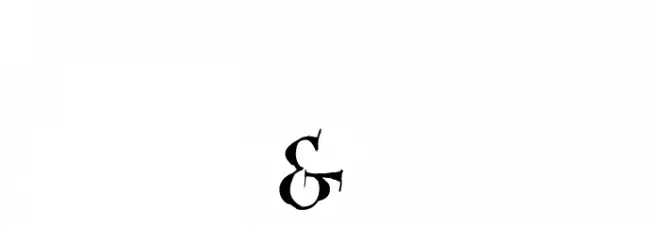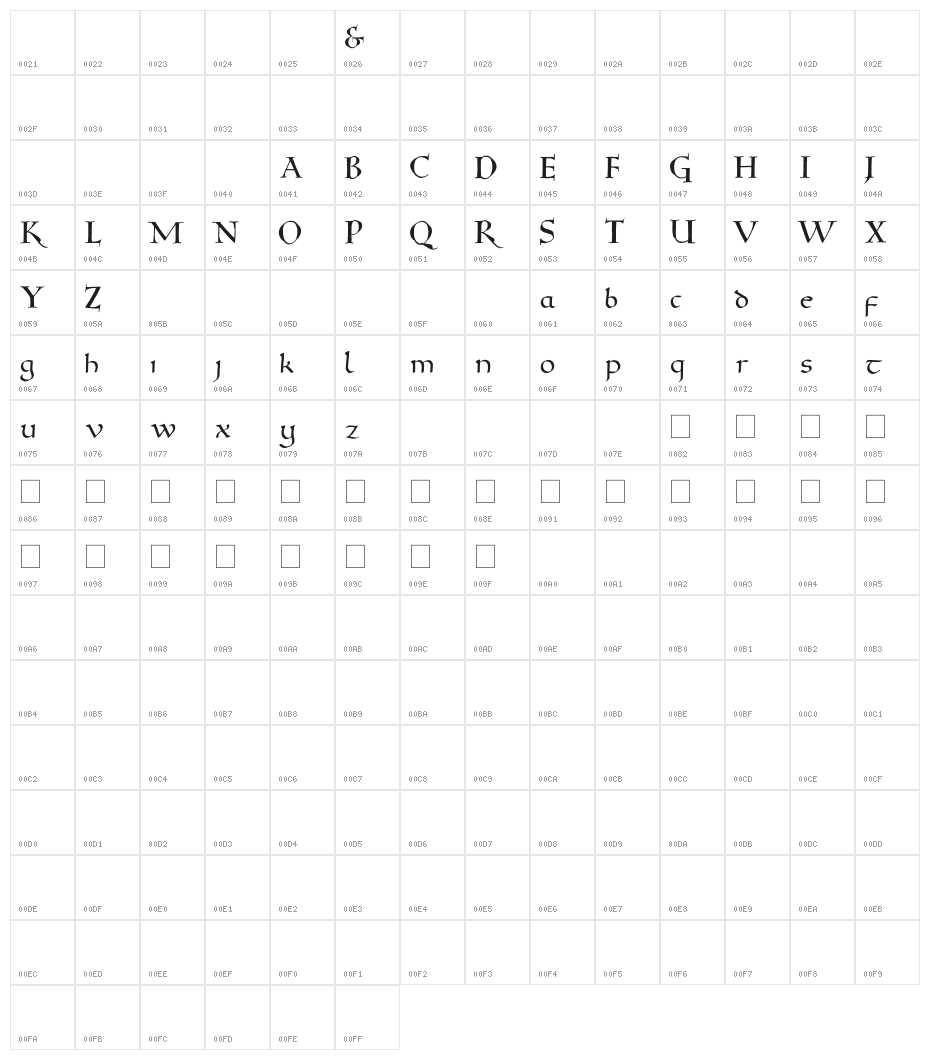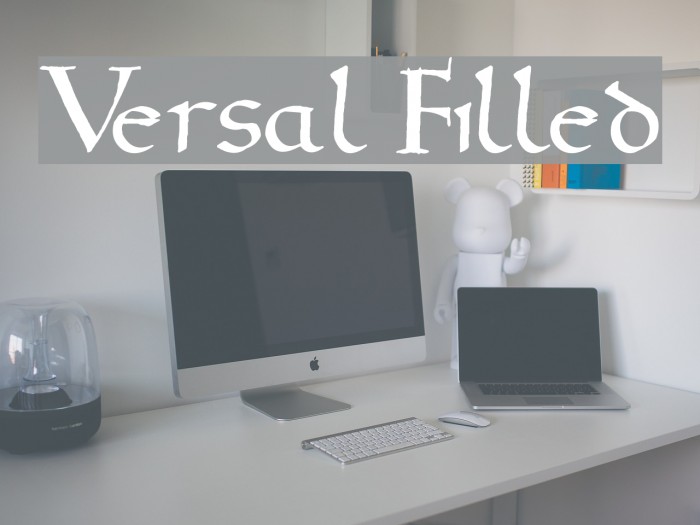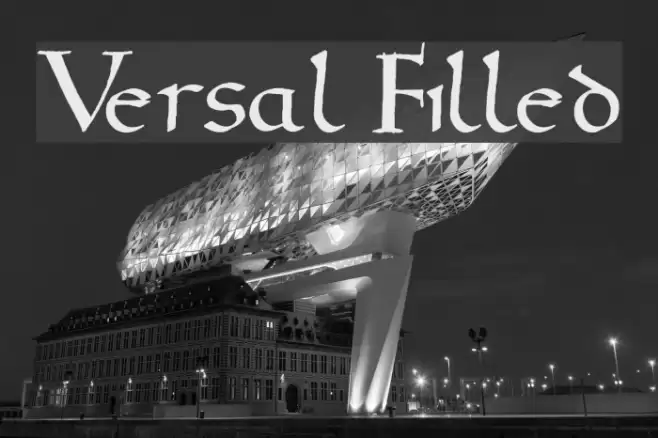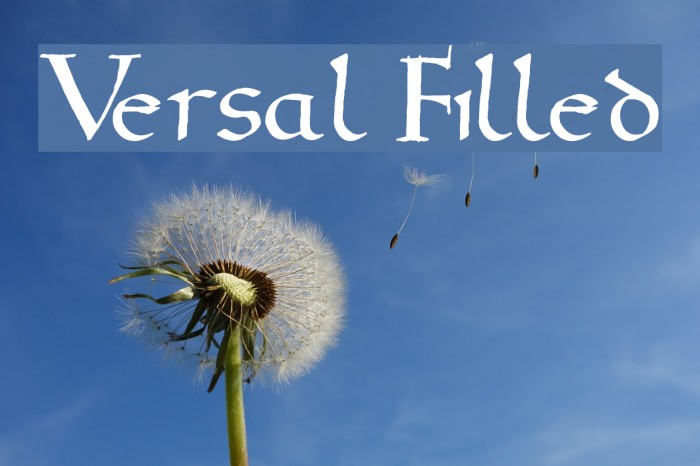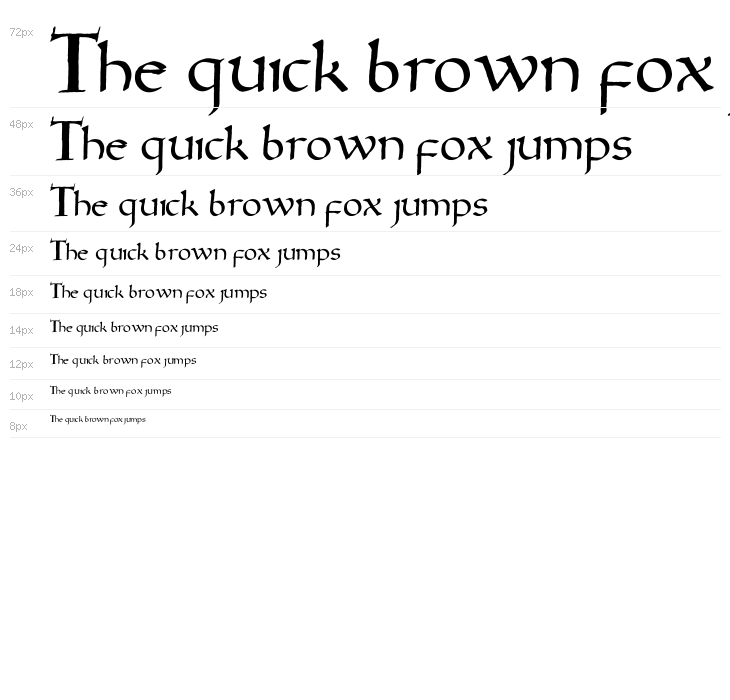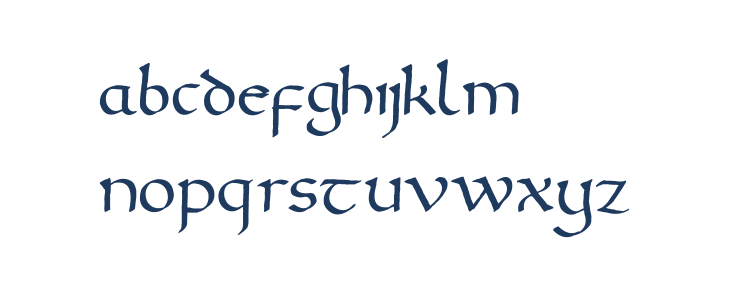
Versal Filled Font
Versal Filled Description
This font exudes a classic and historical charm, reminiscent of medieval manuscripts. The characters are ornate with a distinct calligraphic style, featuring sharp serifs and elegant curves. The uppercase letters are bold and commanding, while the lowercase letters maintain a consistent flow, enhancing readability. The ampersand is particularly decorative, adding a touch of sophistication. This font's intricate design makes it suitable for projects that require a touch of elegance and tradition.
| Use Case | Headlines, Logos, Decorative text |
| Proposed Projects | Ideal for historical documents, wedding invitations, book covers, and branding that requires a traditional and elegant touch. |